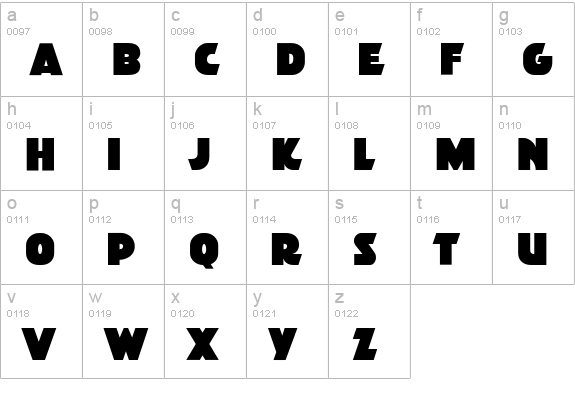
CCStormtrooper Font Details
Introducing CCStormtrooper font, a sleek and modern typeface designed to make a bold statement. This font features clean lines and sharp edges, giving it a futuristic and edgy vibe that is perfect for a variety of design projects. The CCStormtrooper font is versatile and can be used for anything from logos to posters to social media graphics. With its unique style, this font is sure to grab attention and leave a lasting impression. The best part? CCStormtrooper font is completely free to download at FontsMarket.com. This means you can elevate your designs without breaking the bank. Don't miss out on this opportunity to add a touch of sophistication and style to your projects with the CCStormtrooper font, available for free download today!